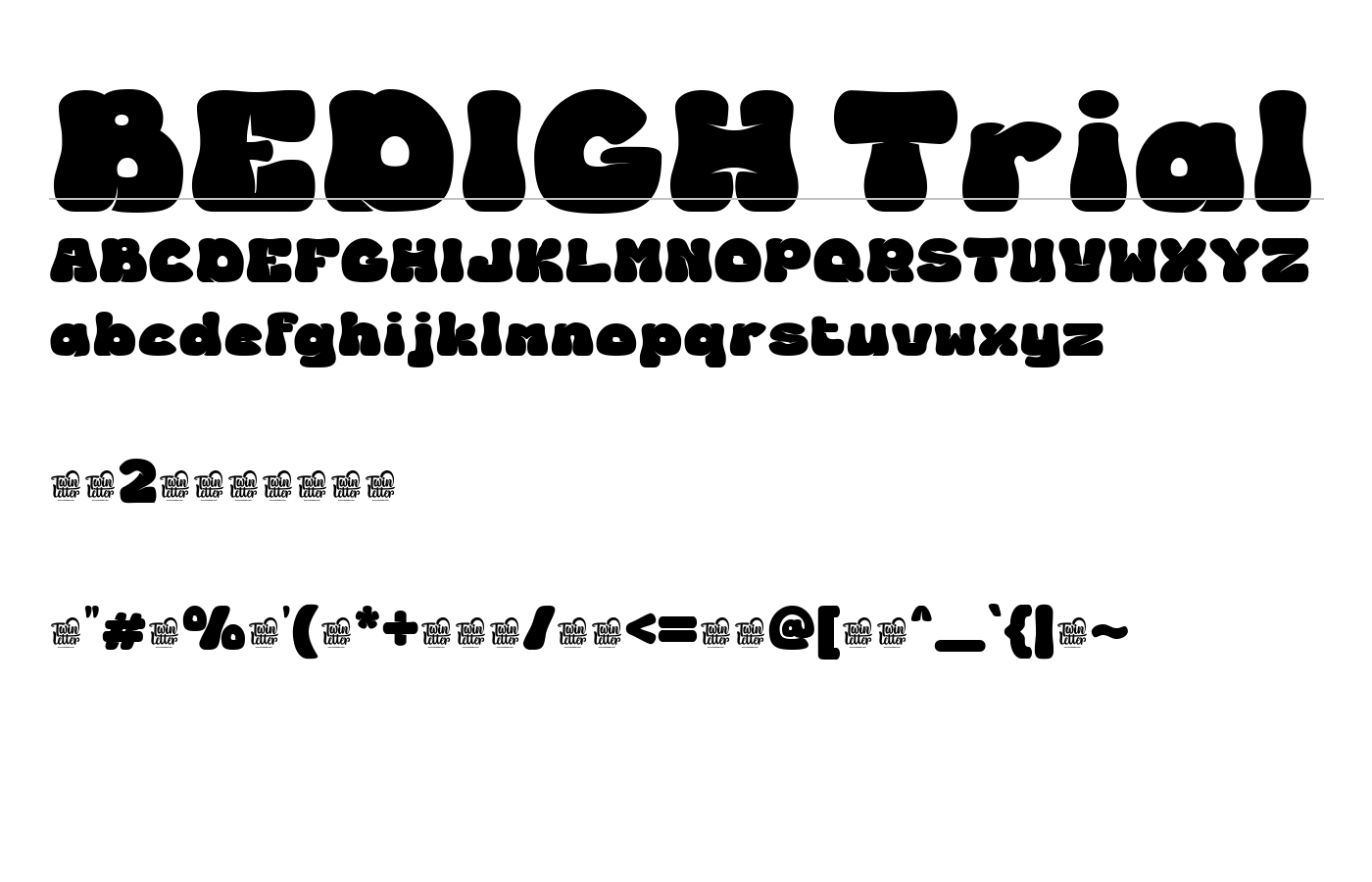
BEDIGH Trial is a bold, playful display font with chunky, rounded letterforms that give it a fun and friendly vibe. Its heavy weight and irregular shapes make it perfect for eye-catching headlines, posters, and branding that want to convey a quirky and approachable personality. This font works best in creative, informal contexts where a strong, expressive style is needed to grab attention.
BEDIGH Trial Font
About BEDIGH Trial Font
| Font family | BEDIGH Trial Font |
| Designer | Danial |